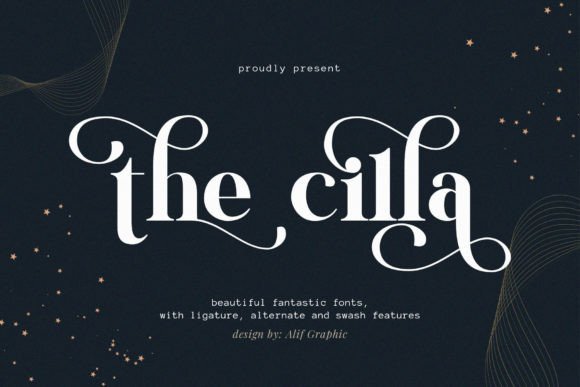
In the realm of typography, there exists a font that transcends the ordinary, a font that captivates the senses and ignites the imagination - The Cilla Font. This exquisite serif font, crafted with meticulous attention to detail by the renowned alifgraphic, is a testament to the power of visual aesthetics. With its inherent elegance and bold presence, Cilla is poised to transform your creative endeavors into masterpieces of visual delight.
Immerse yourself in the boundless versatility of Cilla, a font that seamlessly adapts to a myriad of design aspirations. Its graceful serifs lend an air of sophistication to wedding invitations, imbuing them with a timeless charm. Unleash your creativity with Cilla's captivating strokes, adorning your stationary art with a touch of elegance that speaks volumes. Captivating social media posts await, as The Cilla Font breathes life into your words, turning them into visually stunning expressions that demand attention.
Embrace the spirit of the festive season with Cilla, the ultimate font for Christmas letters. Its bold and jolly strokes capture the exuberance of the holidays, infusing your Christmas greetings with warmth and cheer. Let Cilla be your creative companion as you craft heartfelt messages, transforming them into visual melodies that resonate with the spirit of love and togetherness.
With Cilla as your trusted font, let your imagination soar to new heights. Its versatility knows no bounds, empowering you to craft logos that radiate professionalism, brochures that exude elegance, and flyers that ignite curiosity. The Cilla Font is the perfect choice for those seeking a font that exudes both sophistication and playfulness, a font that elevates their designs to new levels of visual excellence.
Experience the allure of The Cilla Font, a serif masterpiece that will lend an air of elegance and charm to all your creative pursuits. Let its versatility ignite your imagination, transforming ordinary words into extraordinary expressions. Embrace the endless possibilities that await, and embark on a journey of visual enchantment with The Cilla Font.